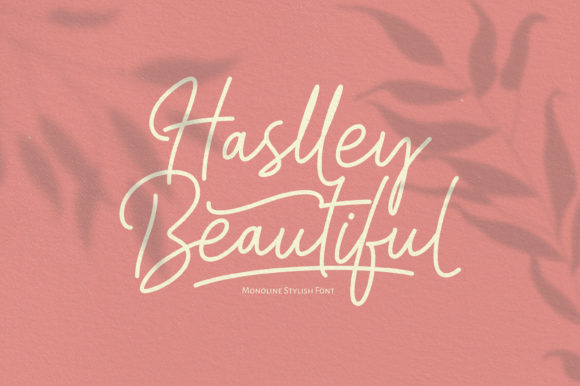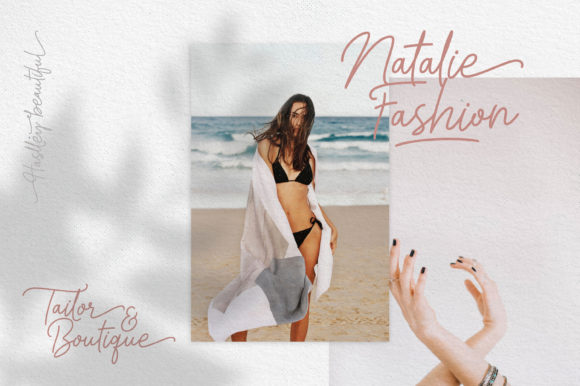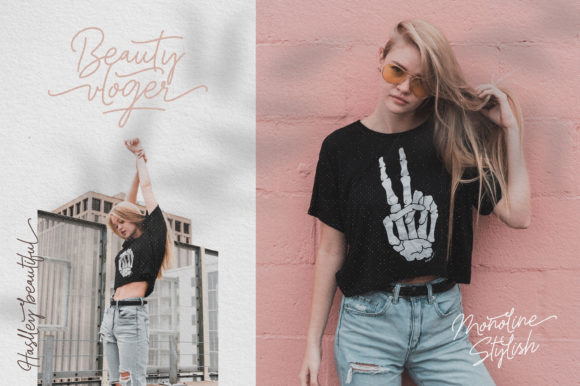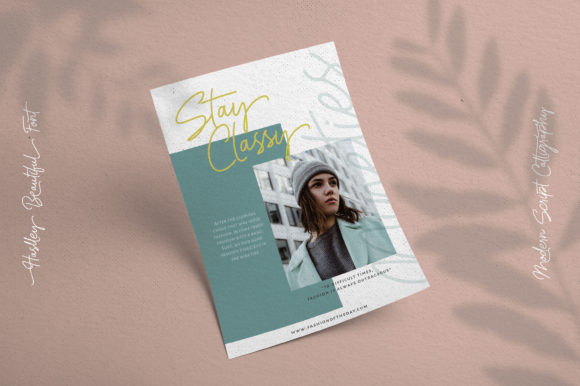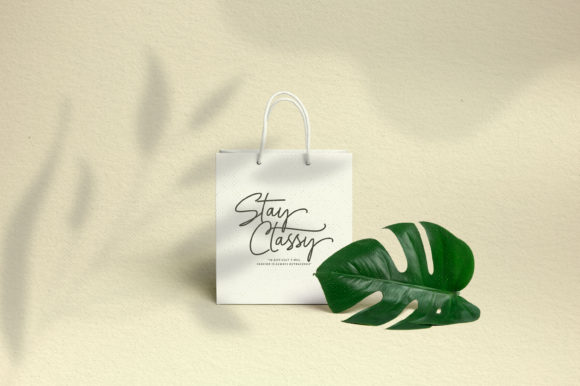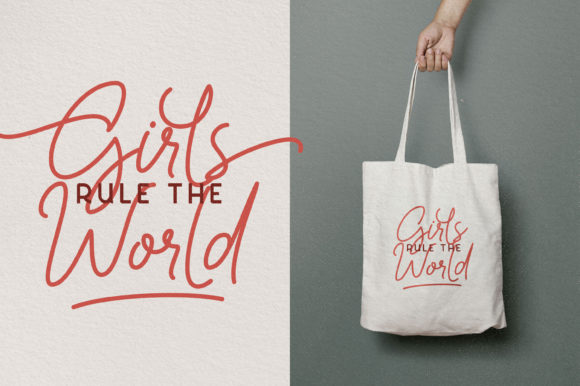
Introducing Haslley Beautiful Font: A Magical Handwritten Font with a Touch of Elegance
Are you a designer or crafter looking for a unique and elegant font to elevate your creative projects? Look no further than Haslley Beautiful Font, a stunning handwritten font that is sure to add a touch of magic to your designs. In this article, we’ll take a closer look at Haslley Beautiful Font, its features, and how it can enhance your creative workflow.
What is Haslley Beautiful Font?
Haslley Beautiful Font is a carefully crafted handwritten font that exudes elegance and sophistication. With its flowing lines and delicate curves, this font is perfect for creating beautiful designs that require a personal touch. Whether you’re working on a branding project, crafting a social media graphic, or designing a wedding invitation, Haslley Beautiful Font is the perfect choice.
One of the standout features of Haslley Beautiful Font is its PUA (Private Use Area) encoding. This means that you can easily access all of the amazing glyphs and swashes that come with the font, without having to navigate complex character maps or coding. With PUA encoding, you can simply select the glyphs and swashes you want to use from your font software, making it easy to add a touch of elegance to your designs.
Features of Haslley Beautiful Font
- Handwritten elegance: Haslley Beautiful Font features delicate, flowing lines that give it a truly handwritten feel.
- PUA encoded: Easy access to glyphs and swashes, making it simple to add a touch of elegance to your designs.
- Magical swashes: The font comes with a range of beautiful swashes that can be used to add a touch of whimsy to your designs.
- Multi-language support: Haslley Beautiful Font supports multiple languages, making it a great choice for designers working on international projects.
Use Cases for Haslley Beautiful Font
Haslley Beautiful Font is a versatile font that can be used in a wide range of creative projects. Here are a few ideas to get you started:
- Branding and logos: Use Haslley Beautiful Font to create a unique and elegant logo that sets your brand apart.
- Social media graphics: Add a touch of elegance to your social media graphics with Haslley Beautiful Font.
- Wedding invitations: This font is perfect for creating beautiful wedding invitations, save-the-dates, and other stationery.
- Crafting and scrapbooking: Haslley Beautiful Font is a great choice for crafters and scrapbookers looking to add a touch of elegance to their projects.
Tips for Using Haslley Beautiful Font
Here are a few tips for getting the most out of Haslley Beautiful Font:
- Experiment with swashes: Don’t be afraid to try out different swashes and glyphs to add a touch of whimsy to your designs.
- Mix and match: Combine Haslley Beautiful Font with other fonts to create a unique and interesting look.
- Pay attention to spacing: Make sure to adjust the spacing between letters and words to create a clean and elegant look.
Haslley Beautiful Font is a stunning handwritten font that is sure to add a touch of elegance to your creative projects. With its PUA encoding, magical swashes, and multi-language support, this font is perfect for designers and crafters looking to create beautiful designs. Whether you’re working on a branding project, crafting a social media graphic, or designing a wedding invitation, Haslley Beautiful Font is the perfect choice.